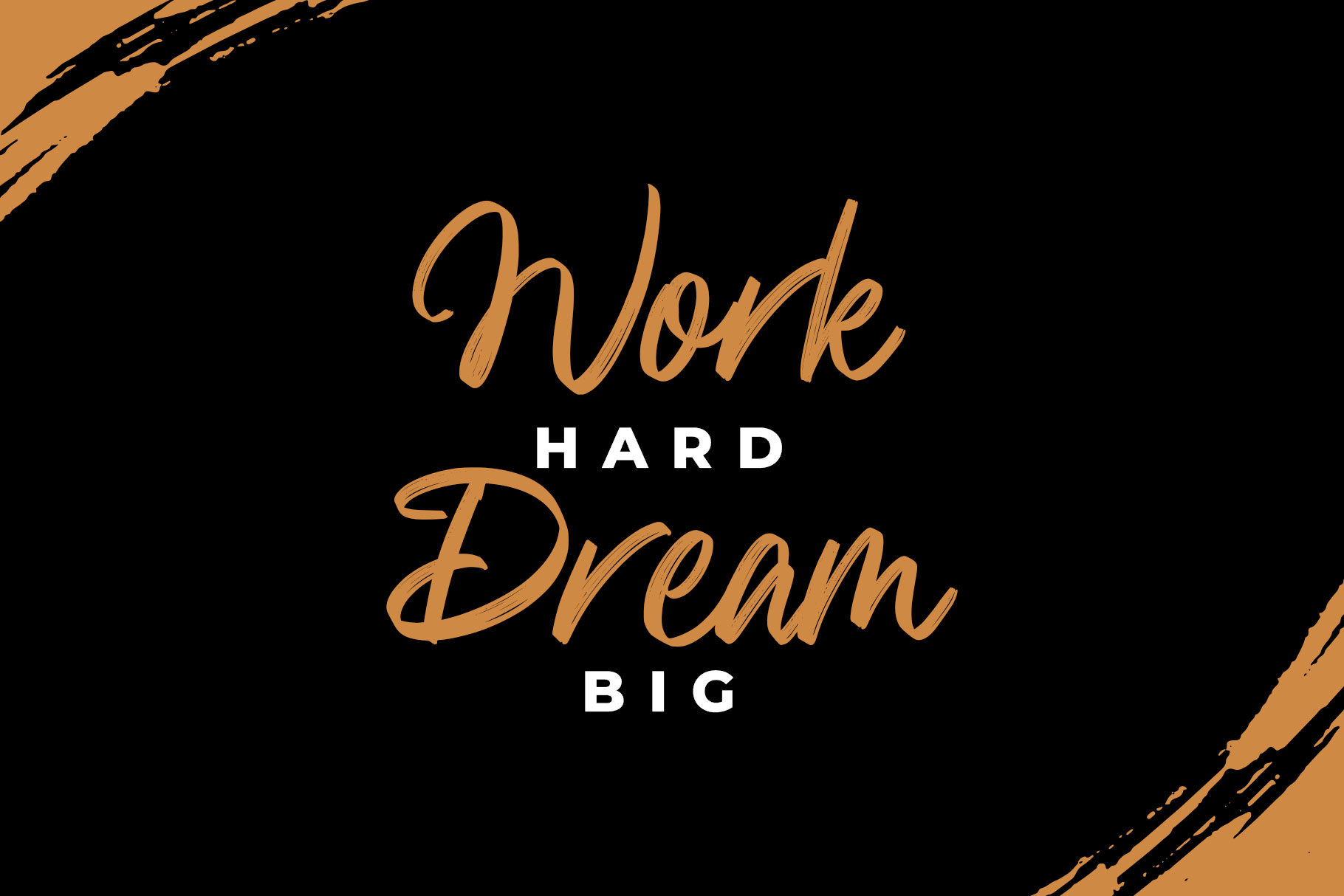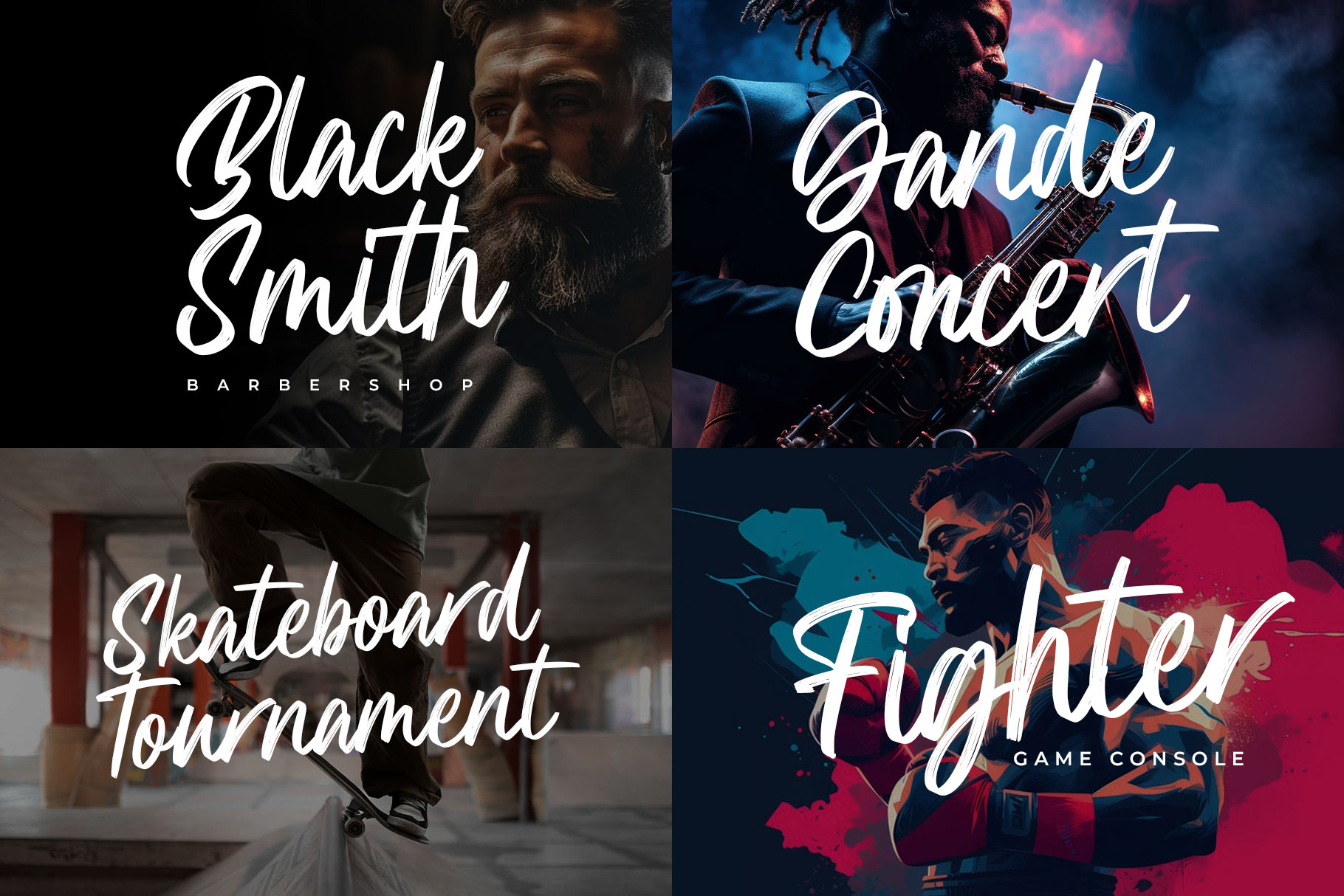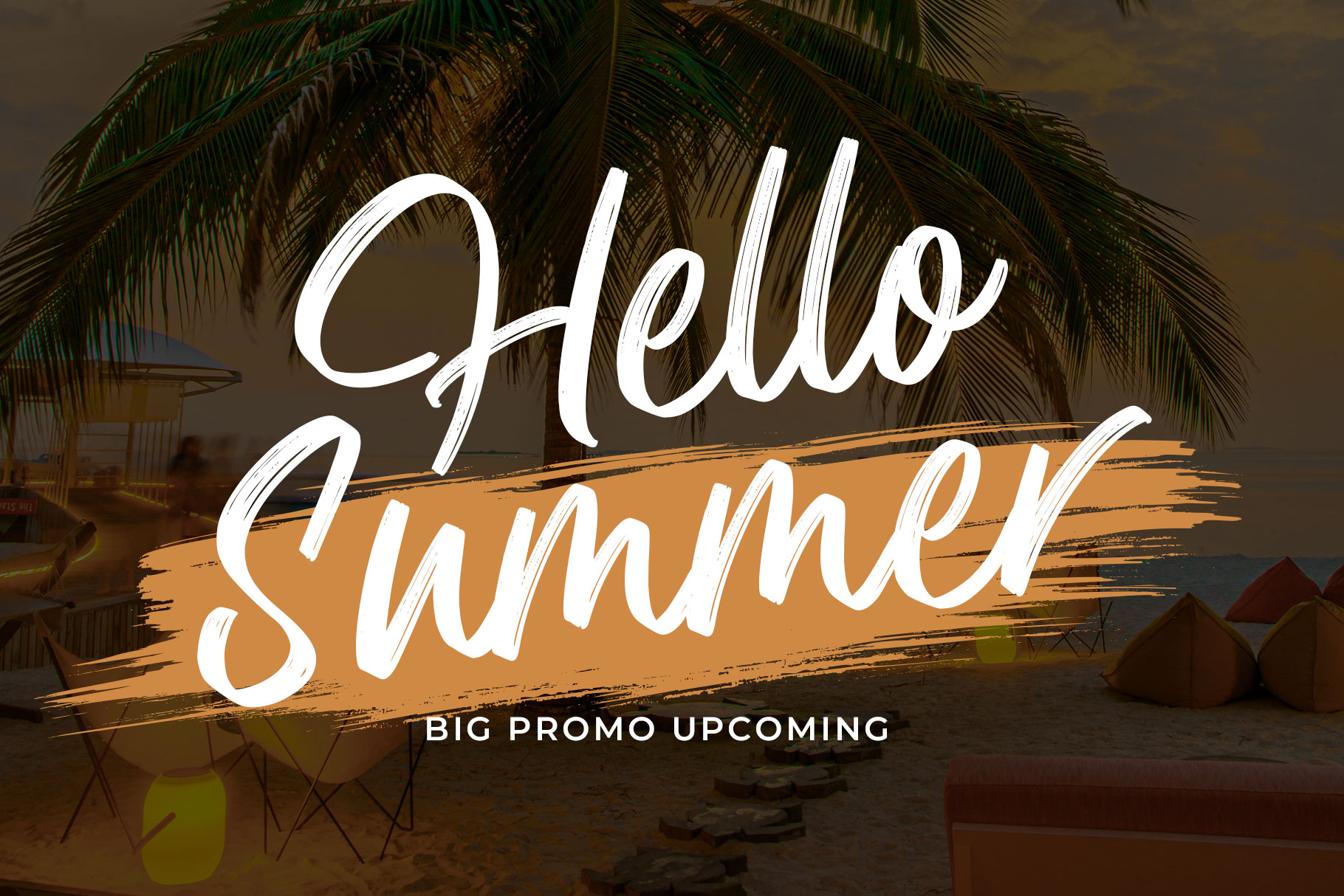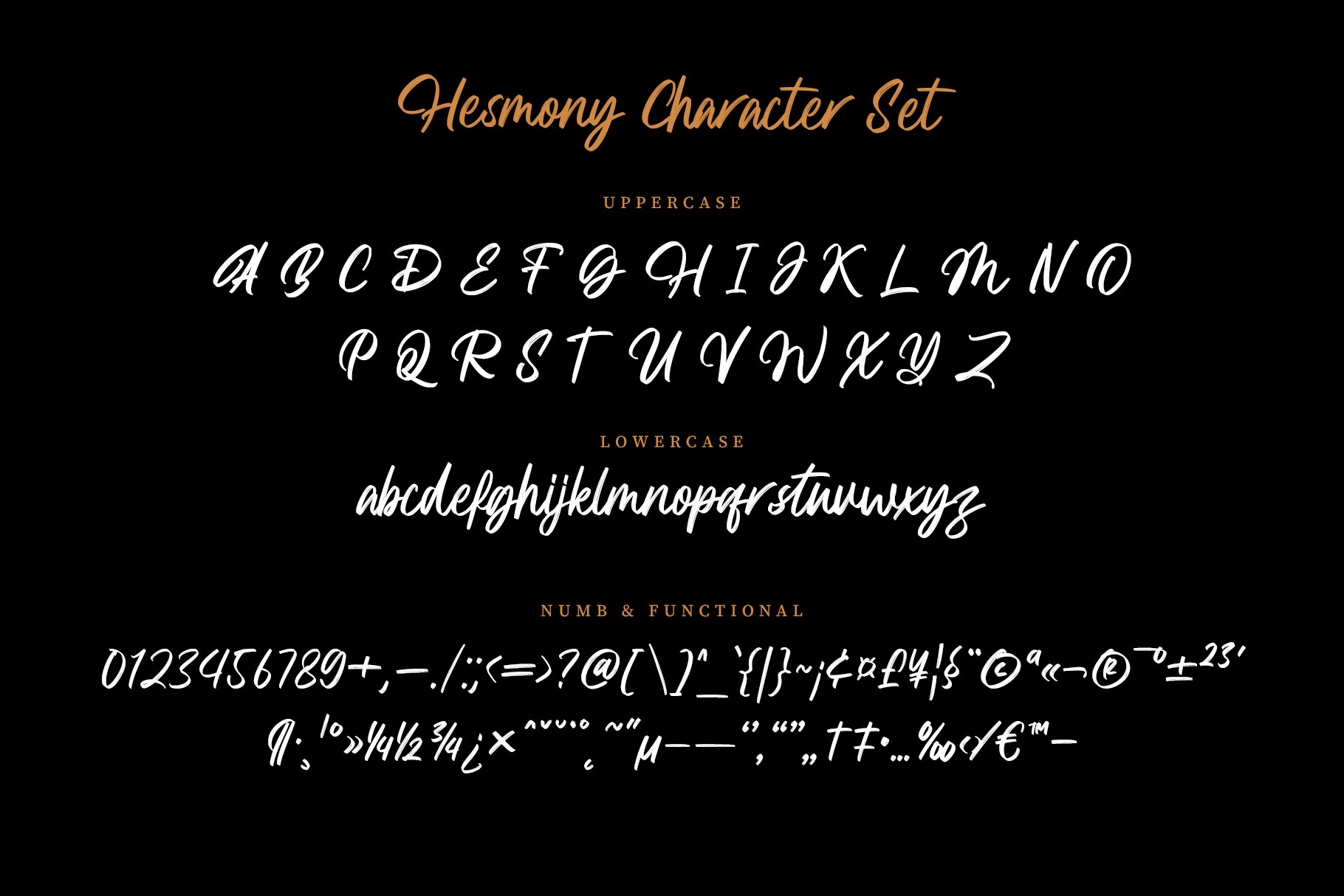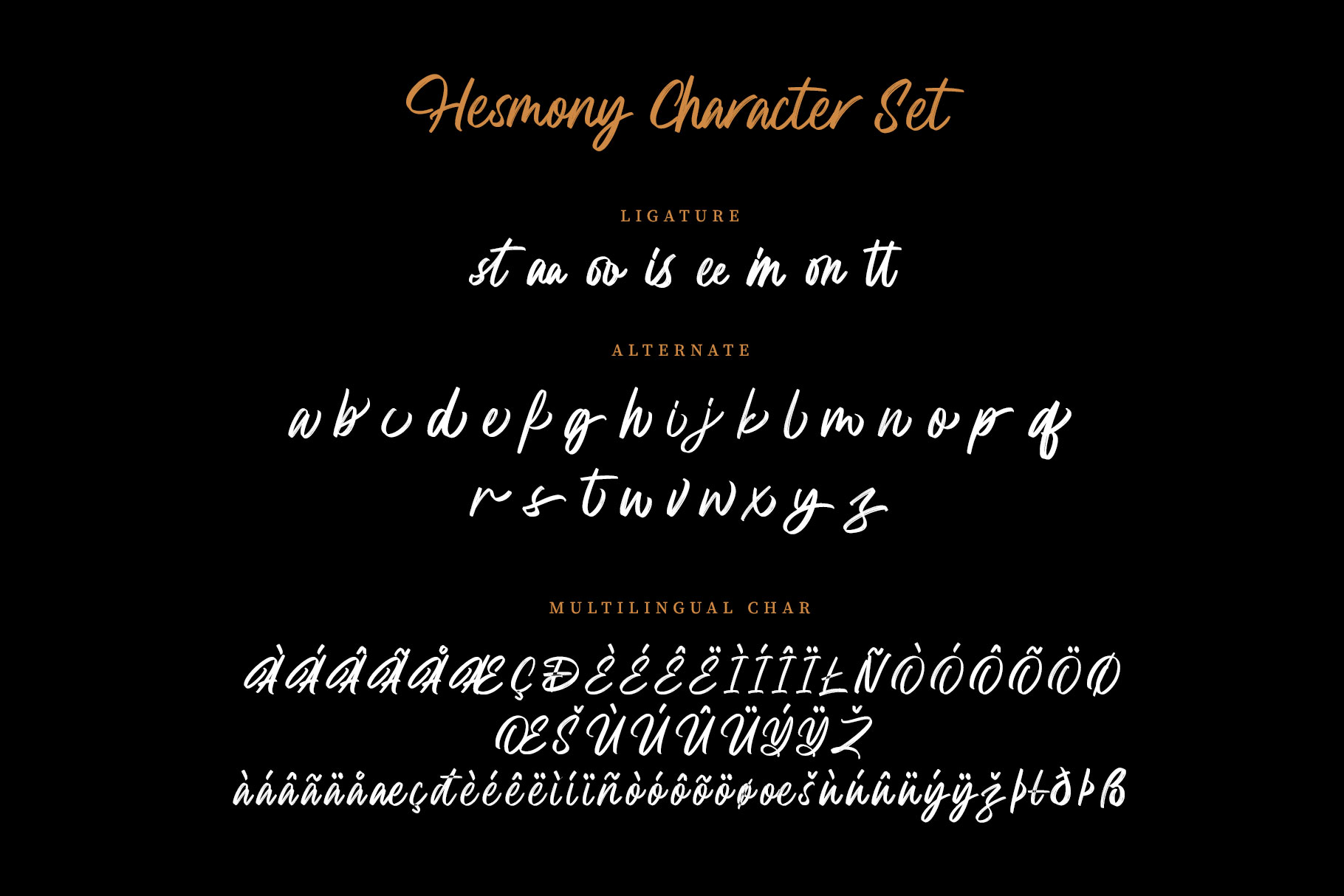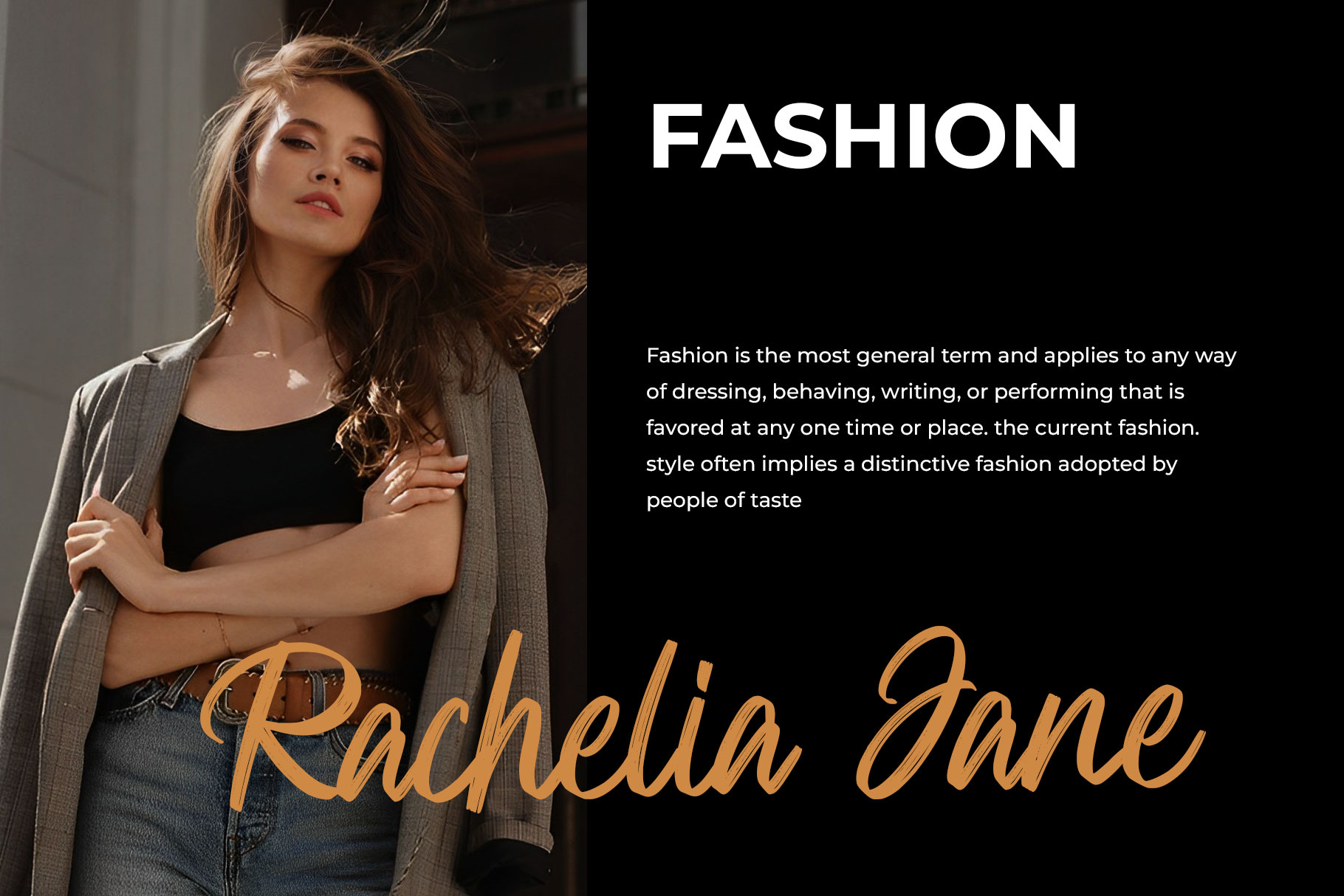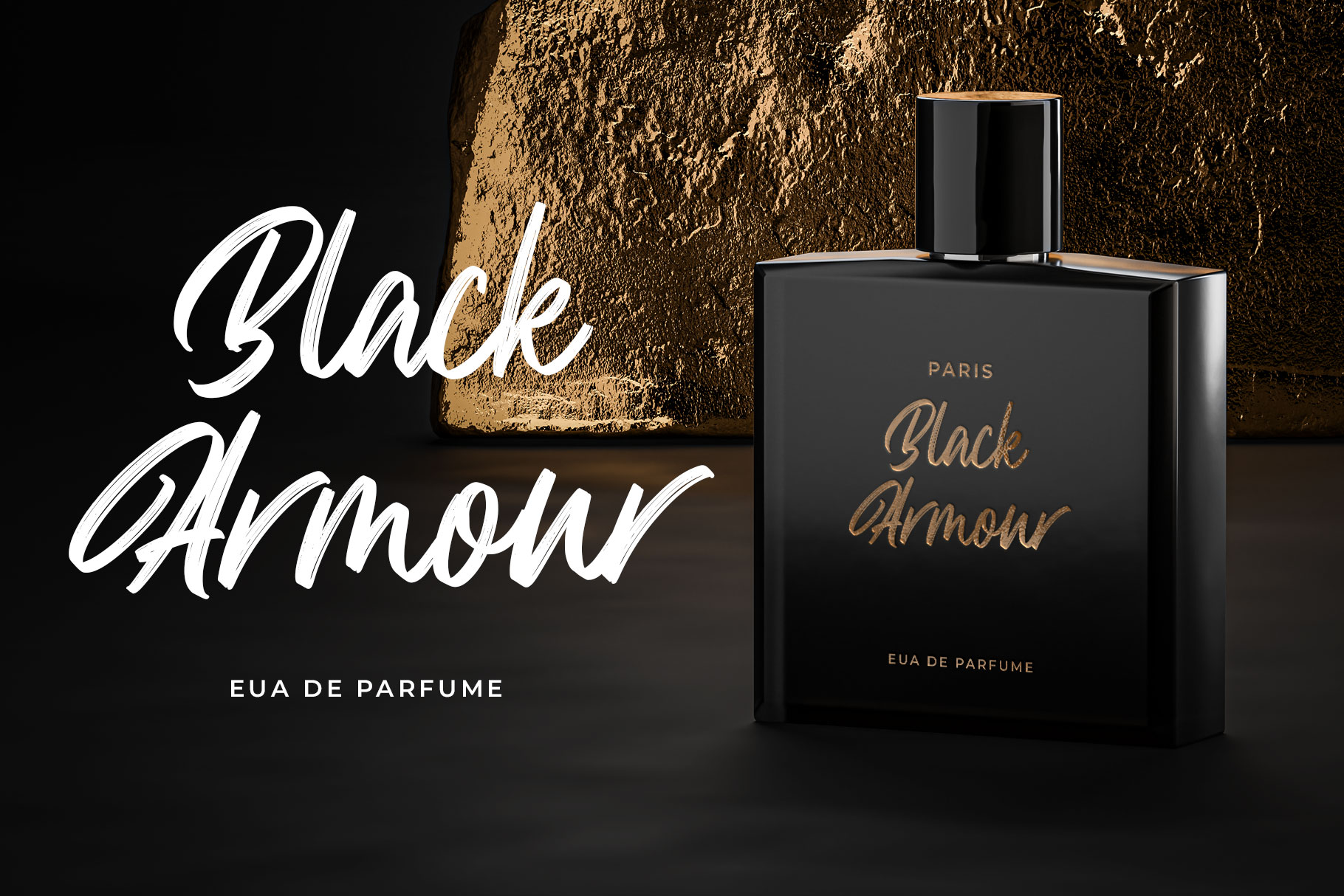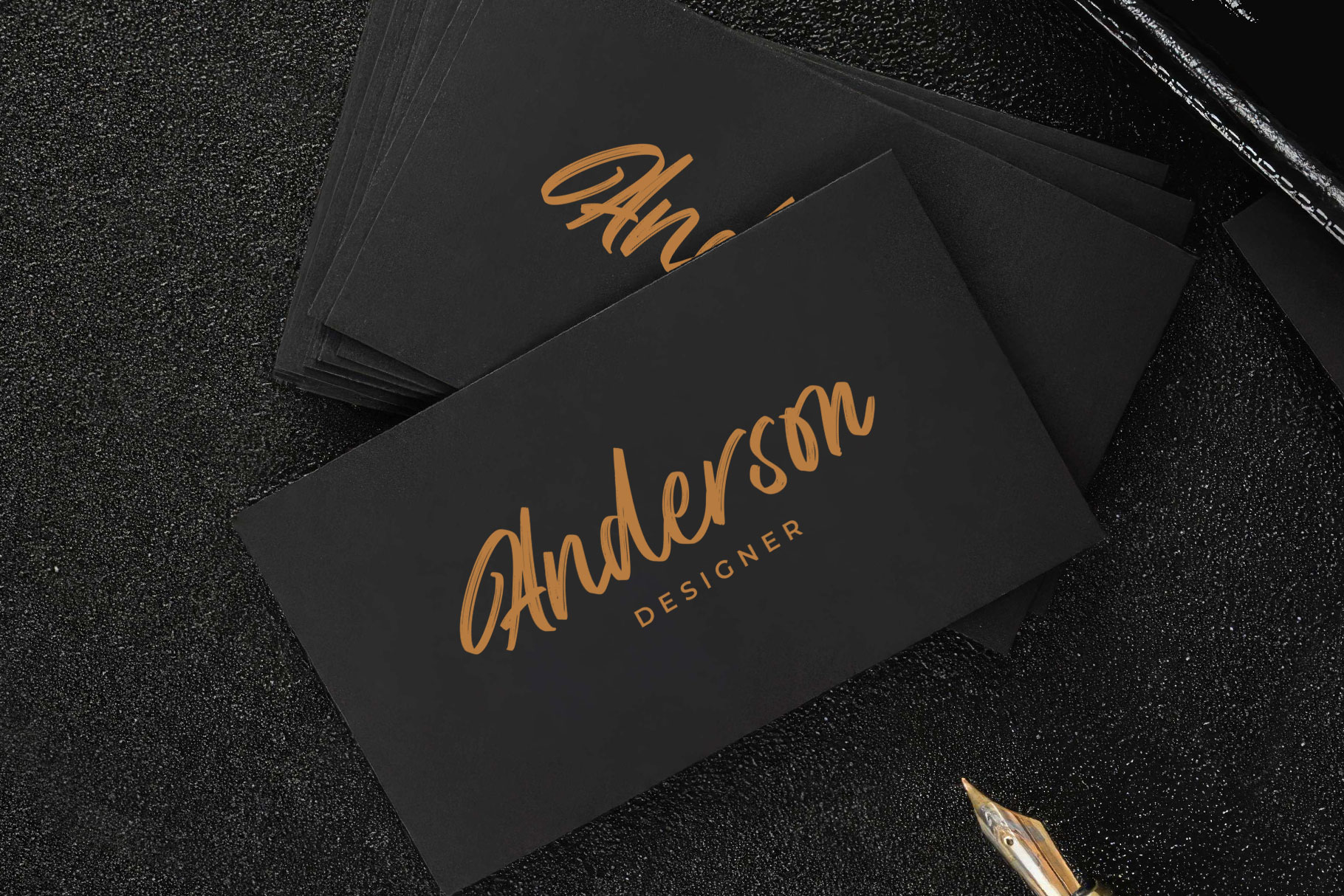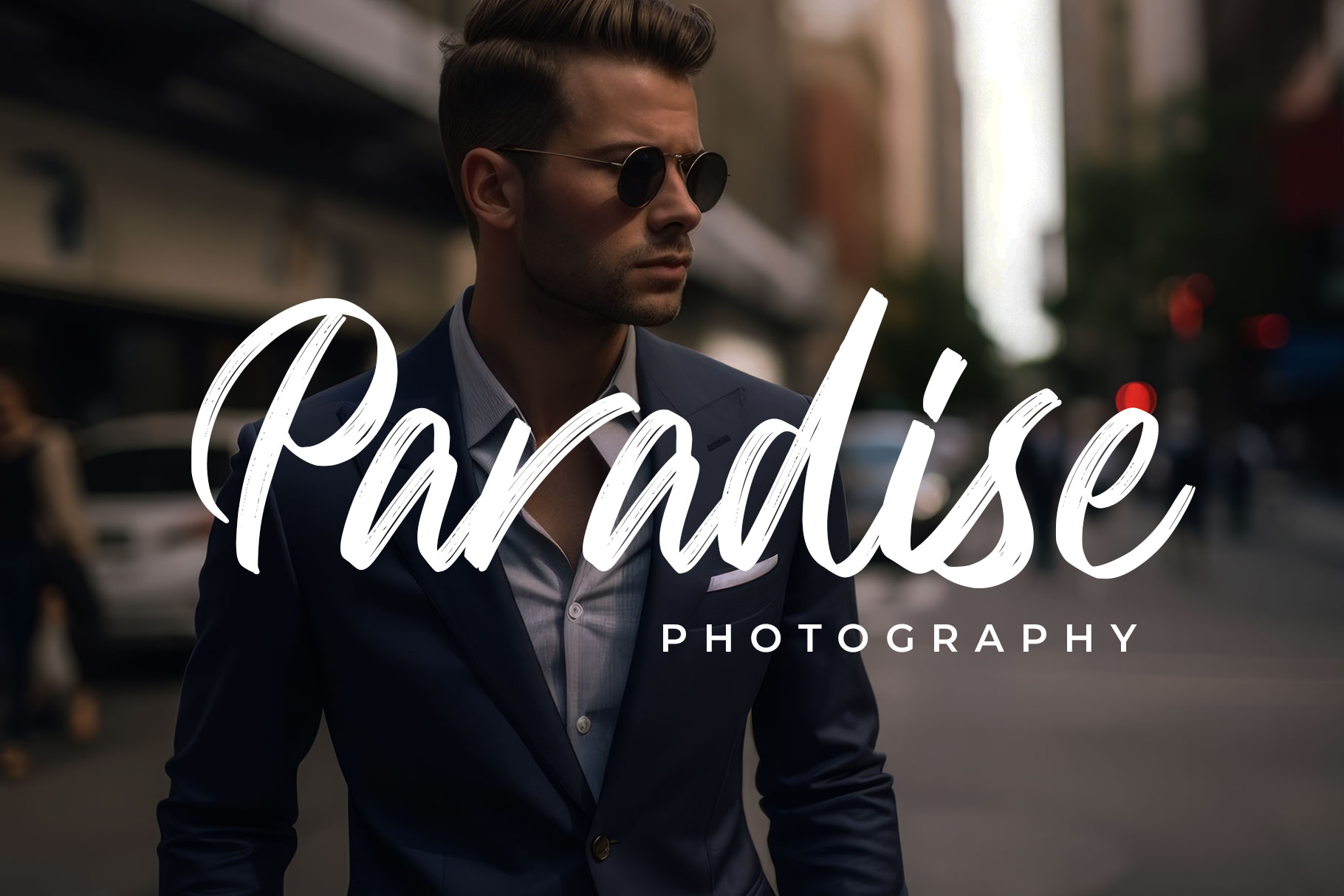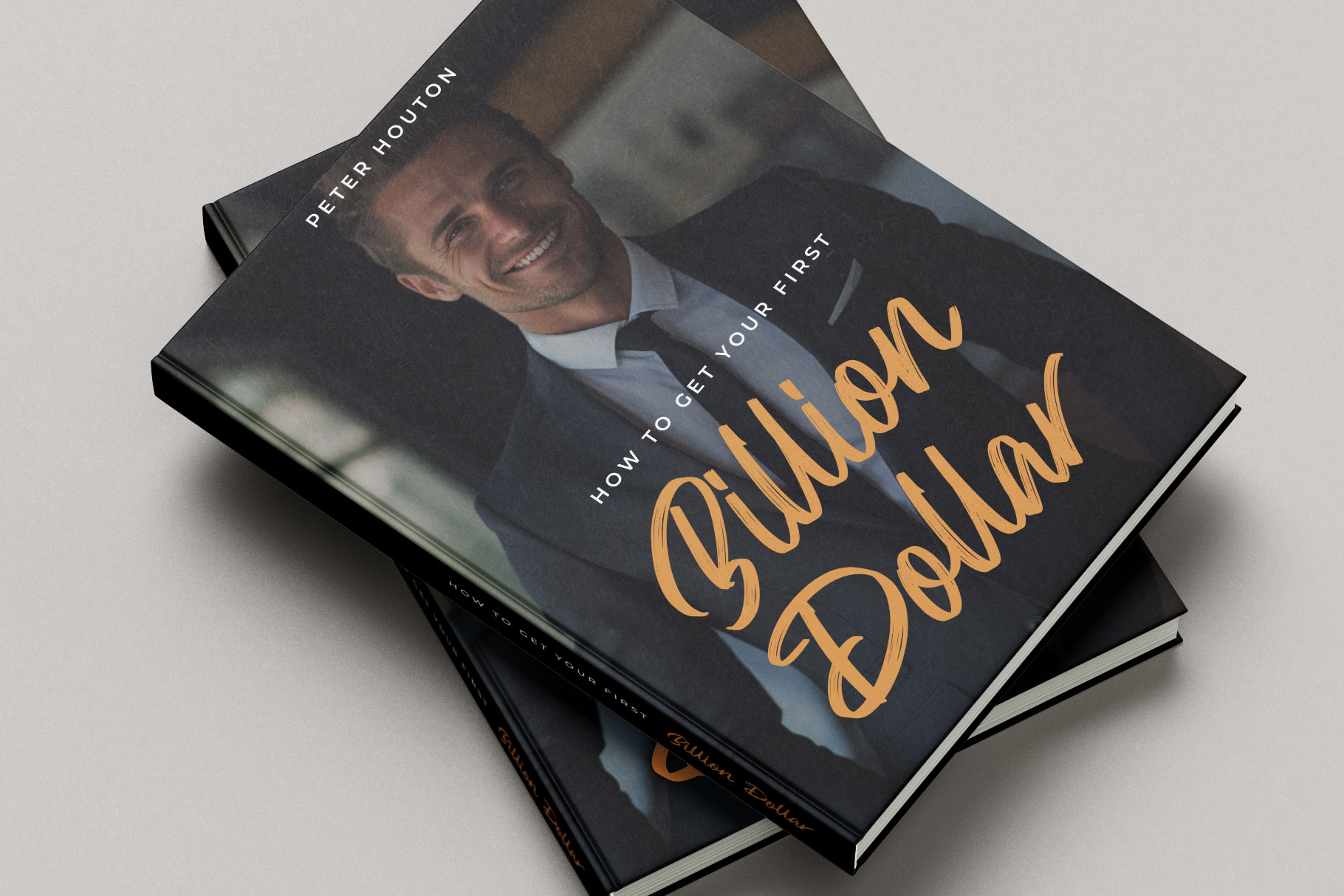
Hesmony Modern Brush Script Font
Hesmony is modern brush script font with classy and elegant look. Hesmony bring sophisticated of beautiful brush to elevate you design project.
Hesmony is a perfectly choice for any creative endeavor, chic, lifestyle design such as logos, advertisements, watermark on photography, stationery, branding project, display and magazine, invitation, corporate brand, product design, label, business project and other project with handwritten taste.